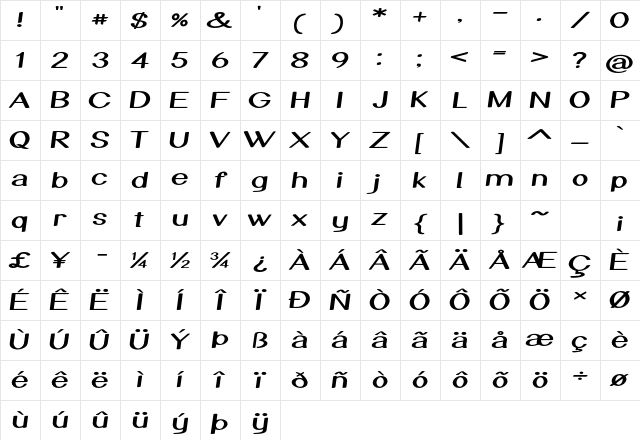
Taffeta Extra-expanded Bold
Style: Extra-expanded Bold
Taffeta Family
Taffeta Extra-expanded Bold
Design Context for Taffeta
Taffeta is a composed and adaptable typeface that performs quietly and consistently across a wide range of design contexts. Its bold stroke weight gives it real presence on the page.